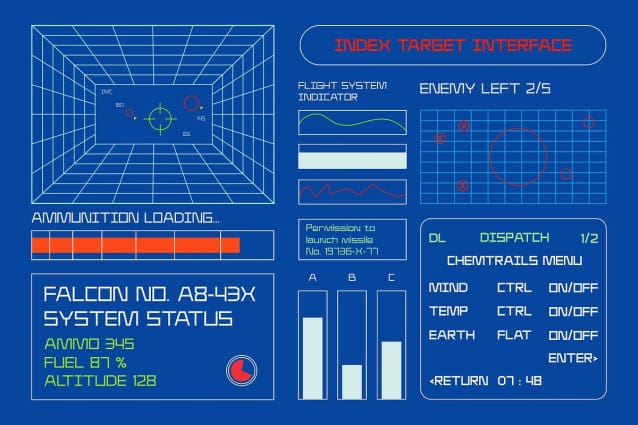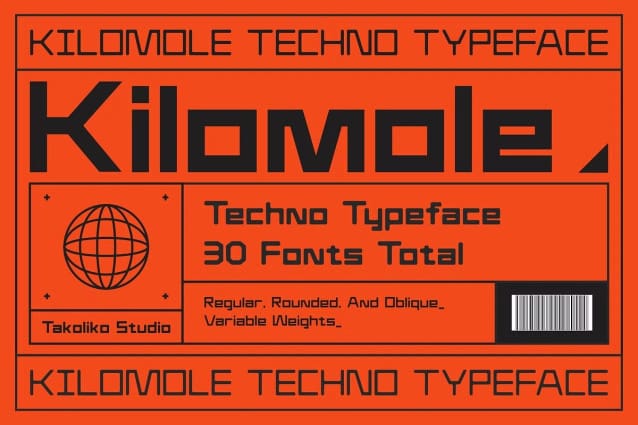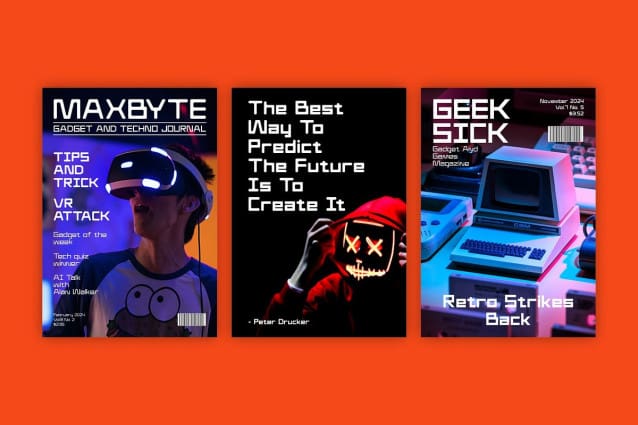
Kilomole Techno Font Family
Kilomole Techno Font Family, the contemporary techno typeface ready to transform your designs. It features not just one, but two distinct styles – regular and rounded, offering versatility for various design concepts. With its cubic aesthetic, Kilomole invokes a sense of resilience synonymous with durable structures, while seamlessly transporting you into a futuristic vibe. This unique font truly champions the gritty edge of urban sophistication, married with the sleek, streamlined look of tomorrow. Enrich your font collection with the cutting-edge appeal of Kilomole Techno typeface.